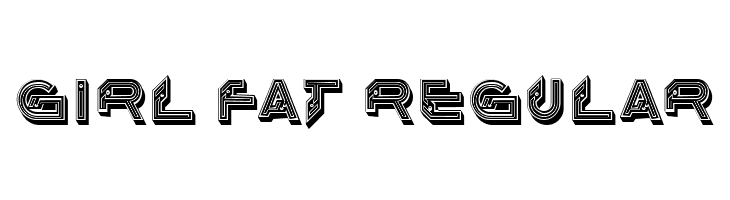
A modern, outlined font with geometric and dimensional characteristics.
A bold, geometric font with a futuristic, decorative style.
A bold, geometric font with a retro, layered design.
A modern, hollow, geometric font with a layered, dimensional look.
A bold, geometric font with a layered, futuristic design.
A bold, decorative font with a three-dimensional, playful design.